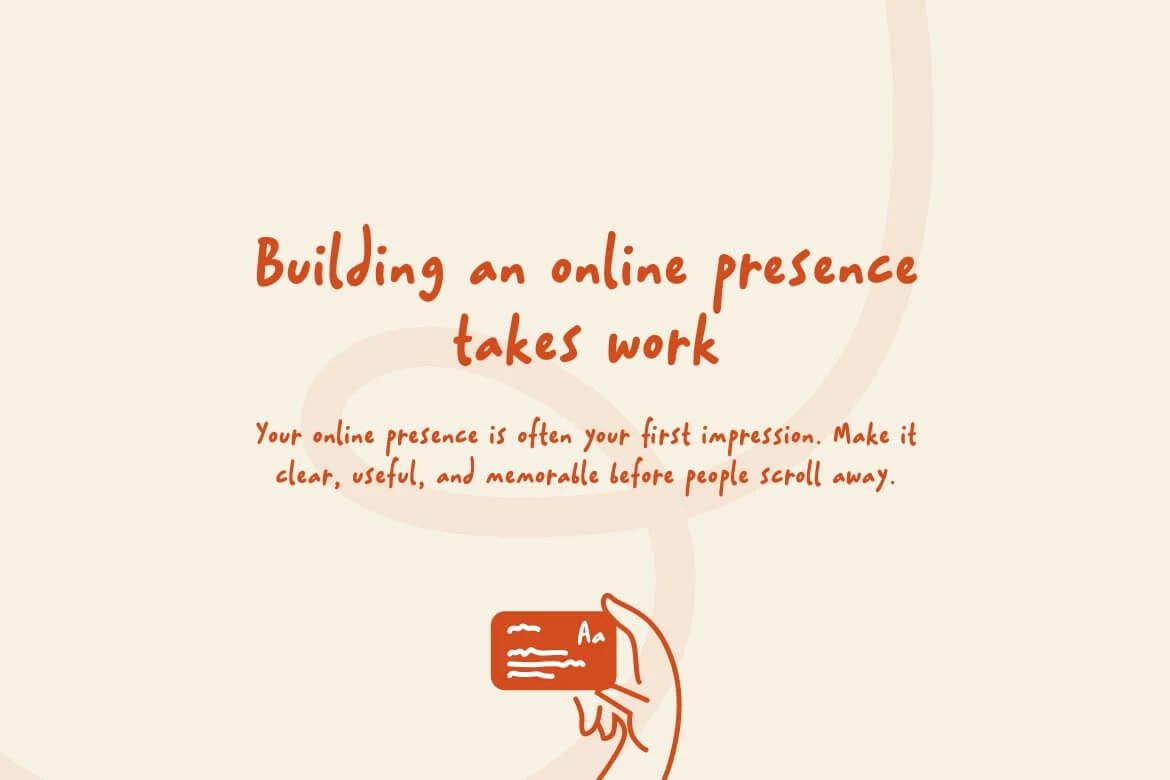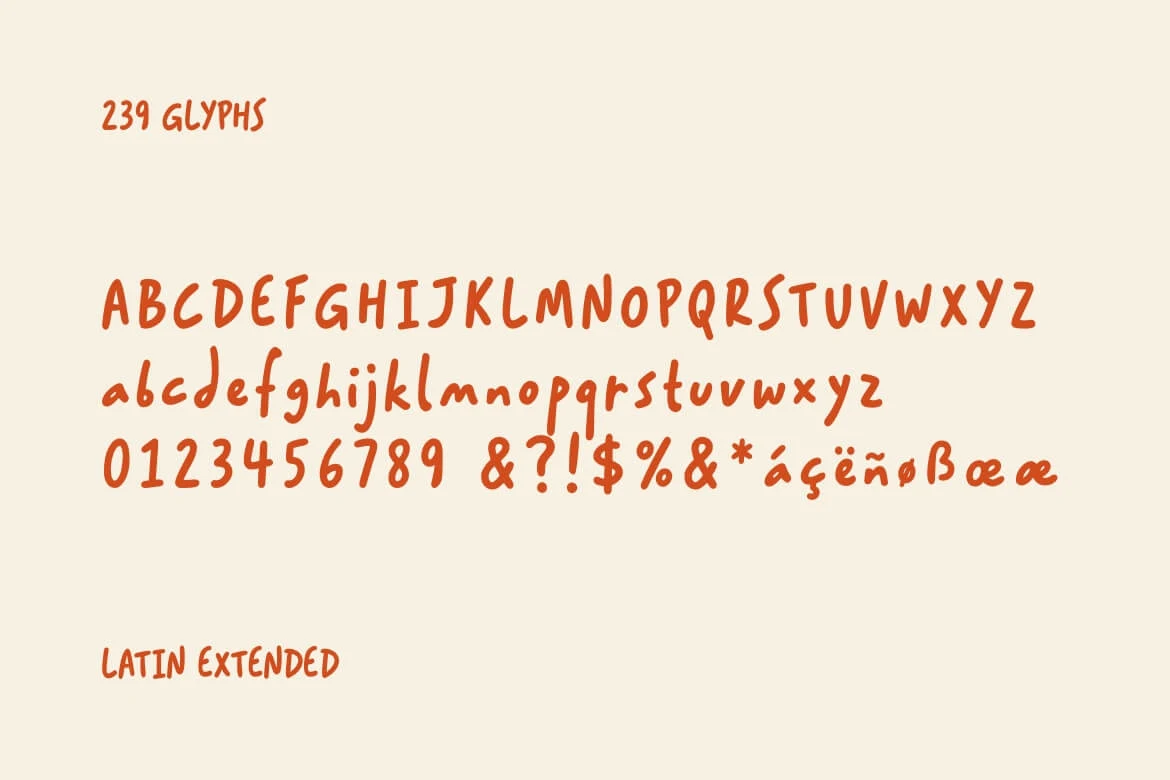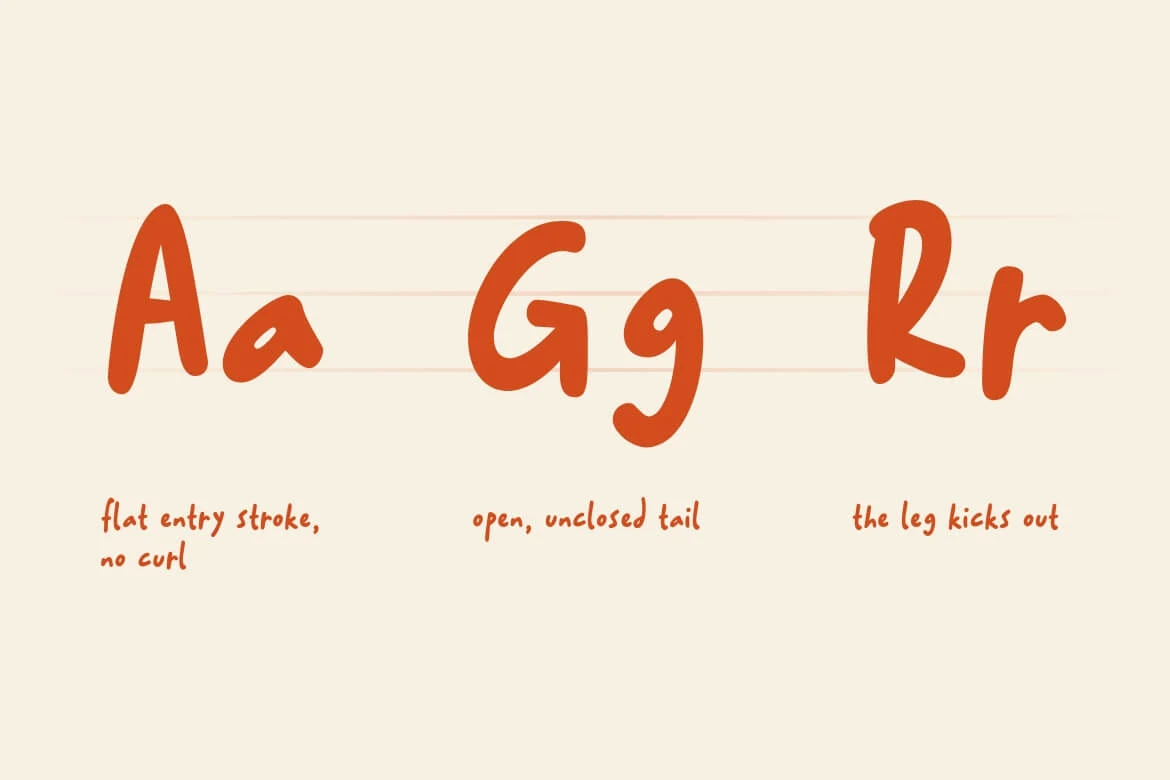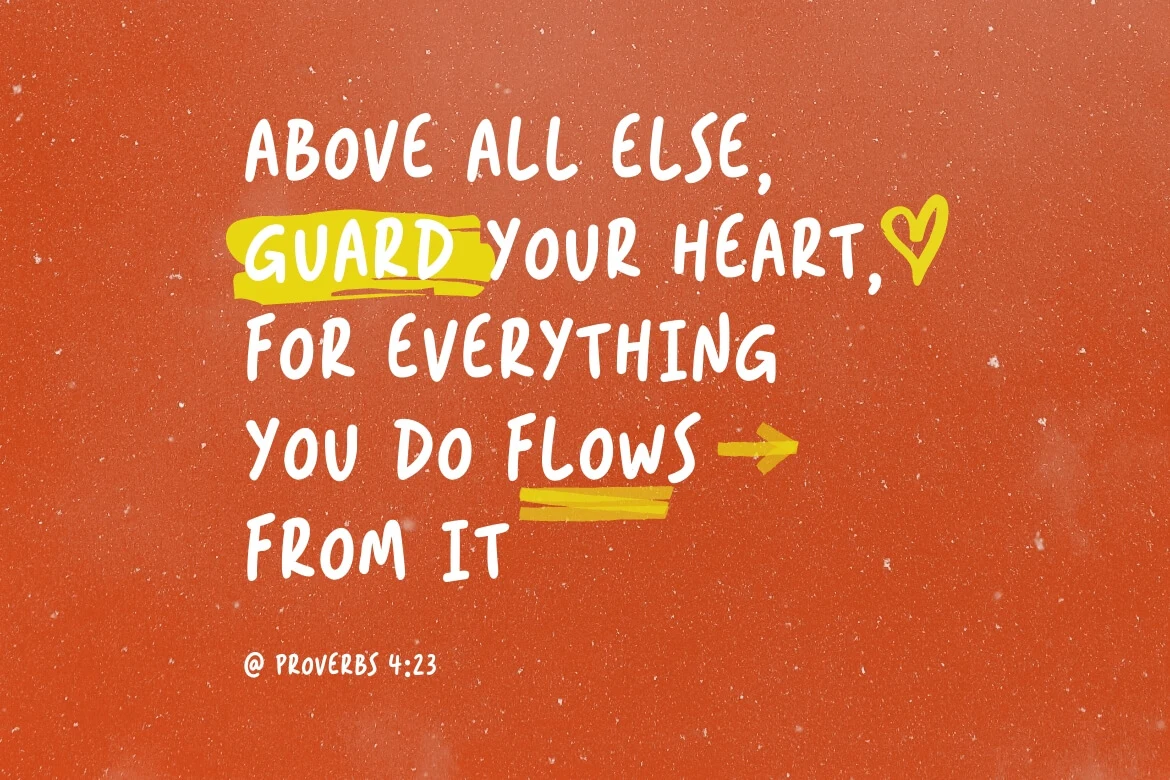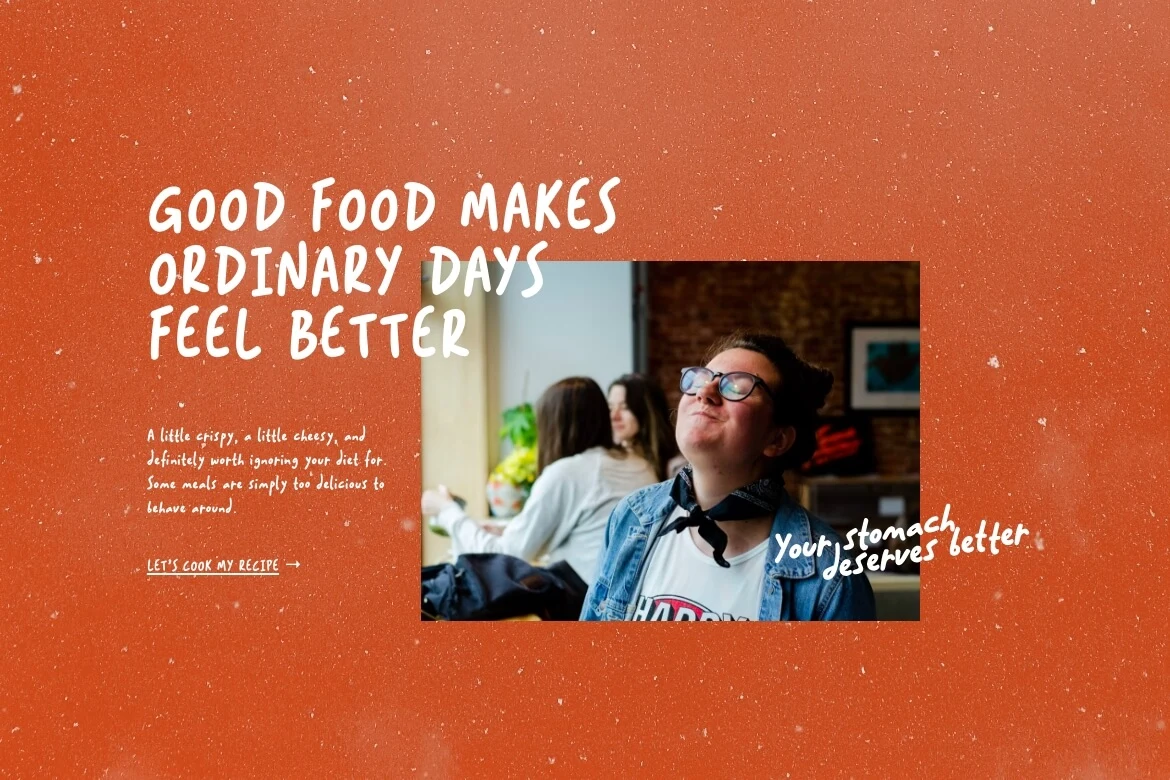
Moseno
Moseno is a playful handwritten typeface made for scrapbook pages, memory keeping, handmade labels, and creative projects that need a warm personal voice. Its bold hand-drawn letters have soft irregular details, so the text feels crafted without becoming hard to read.
The typeface includes uppercase and lowercase letters, numbers, punctuation, Latin accented characters, standard ligatures, special double-letter ligatures, kerning support, proportional and tabular figures, superscript, ordinal features, and web font files. That makes Moseno flexible enough for both printed craft projects and small digital layouts.
Use Moseno for scrapbook titles, journal covers, stickers, greeting cards, photo captions, packaging, posters, children’s designs, social media graphics, merchandise, and friendly branding. It works best when you want typography that feels cheerful, organic, and easy to place beside photos, paper textures, doodles, and collage elements.